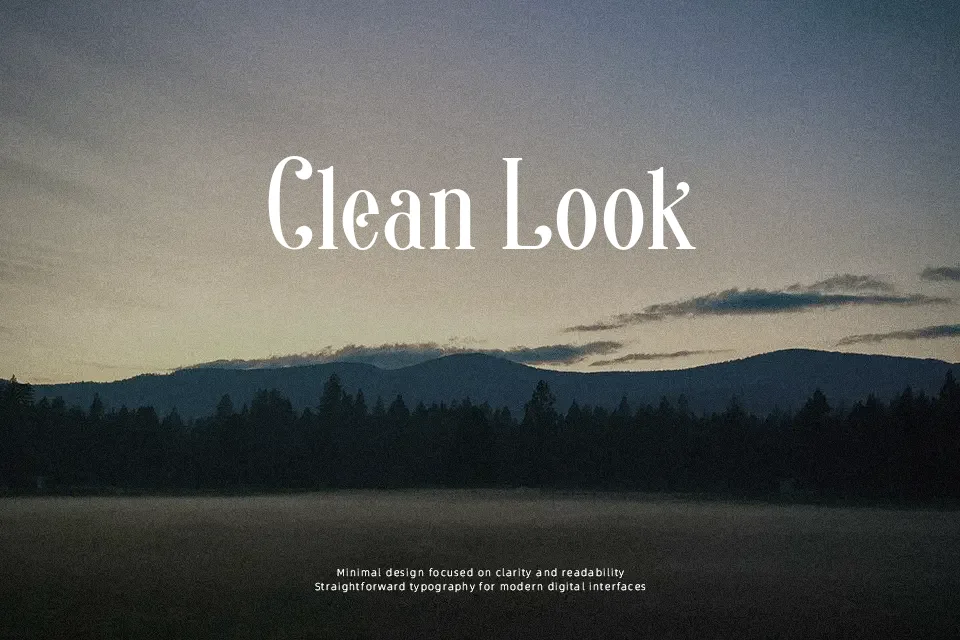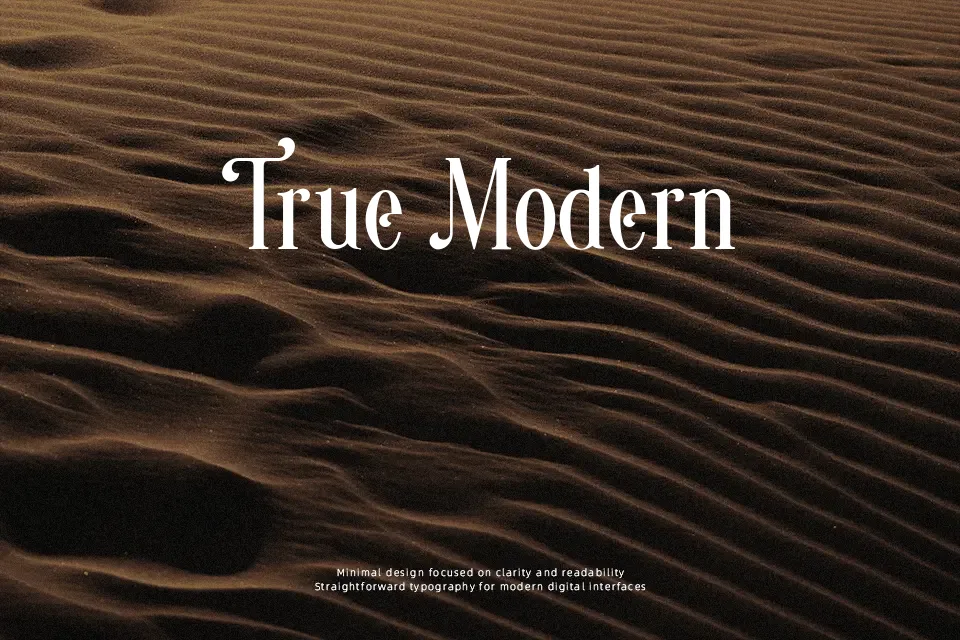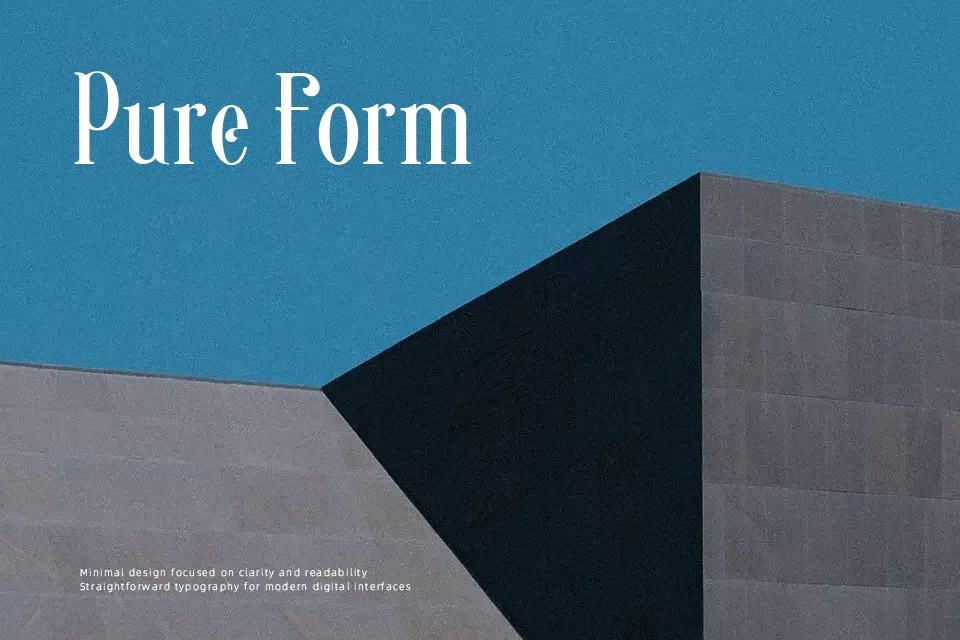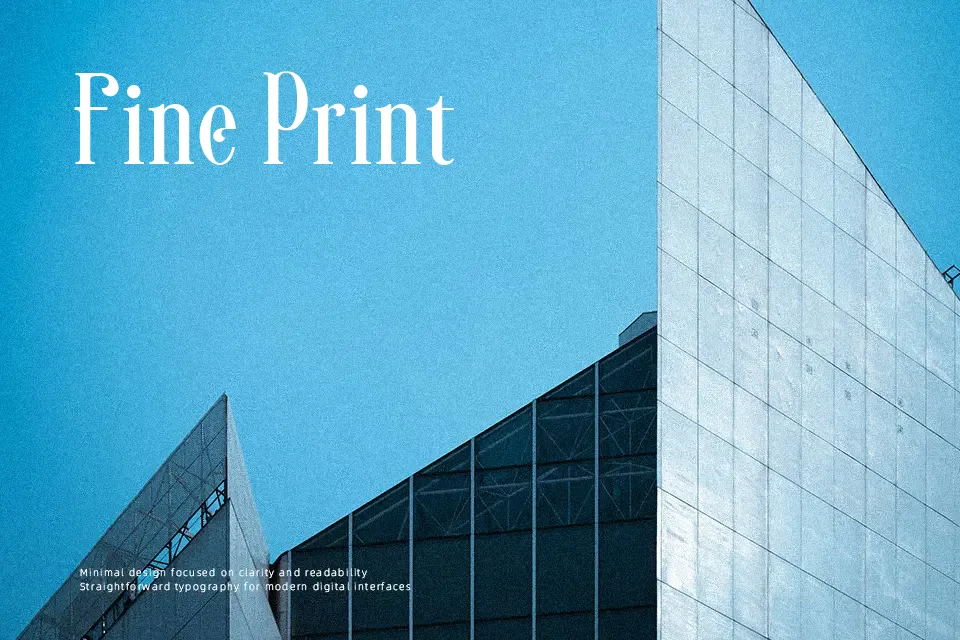
Sonia Font
Sonia Font works best as a decorative serif for short, prominent text. Its letterforms combine narrow proportions with noticeable thick-to-thin stroke contrast, sharp serifs, and rounded swash-like details that give the alphabet a refined, retro-leaning rhythm. Spacing appears compact but remains workable in larger settings, where the distinctive curves and tall forms are easier to read. The typeface suits names, headings, and carefully composed branding rather than dense copy. Its decorative features add character to display work, though they can make small captions and extended reading feel less comfortable.
Best For: wedding invitations,boutique packaging,beauty brand logos,poster headlines
Perfect for branding, invitation, and logo, with a classic and decorative style.